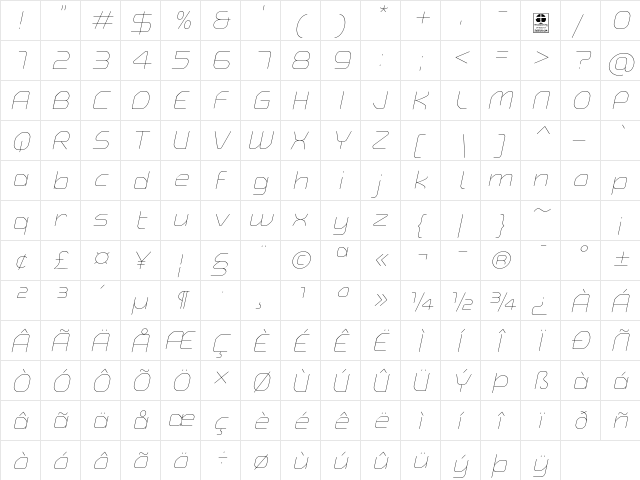
Typo Angular Rounded Thin Demo Italic
Italic · StudioTypo MEHMET ABACI ·
Design Context for Typo Angular Rounded Thin Demo Typeface
Typo Angular Rounded Thin Demo softens its letterforms with rounded terminals, giving it an approachable, friendly quality that works well in consumer-facing and digital contexts. The dynamic lean of this cut emphasises speed and emphasis in any layout. Its slender proportions lend an understated elegance to any composition.
Well-suited to UI design, mobile interfaces, and any brand that wants approachability without sacrificing clarity.
Font Pairing: Pairs well with a rounded or humanist sans for body copy, maintaining the friendly tone without relying on Typo Angular Rounded Thin Demo to carry extended reading.
Pro Tip: Use Typo Angular Rounded Thin Demo for UI elements, app interfaces, and anywhere a friendly, approachable tone needs to be maintained without sacrificing clarity.